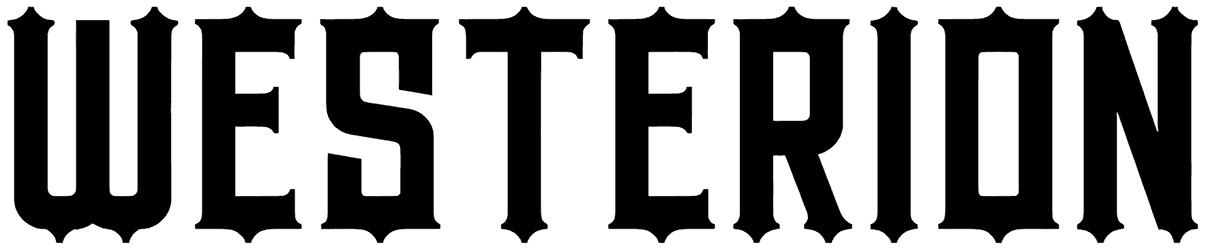
Westerion Font
By downloading and installing Westerion font, you won’t need other fonts for headlines, movie and music posters, T-shirt printing, and book covers. This western font, with its old look and edges reminiscent of star design, adds a sense of adventure and freedom to your designs.
This font doesn’t include lowercase letters but consists of an exciting set of numbers and uppercase letters that have a lot of flexibility and are suitable for any taste.